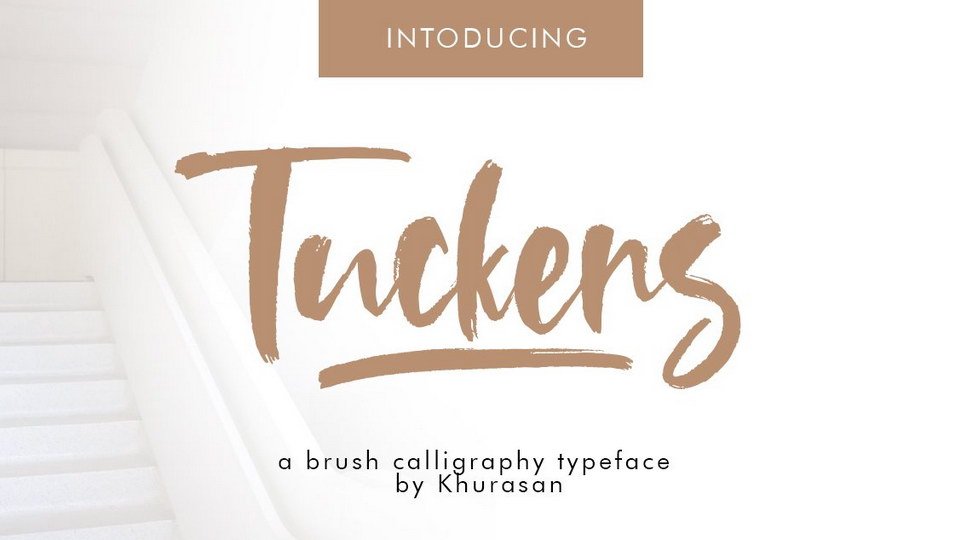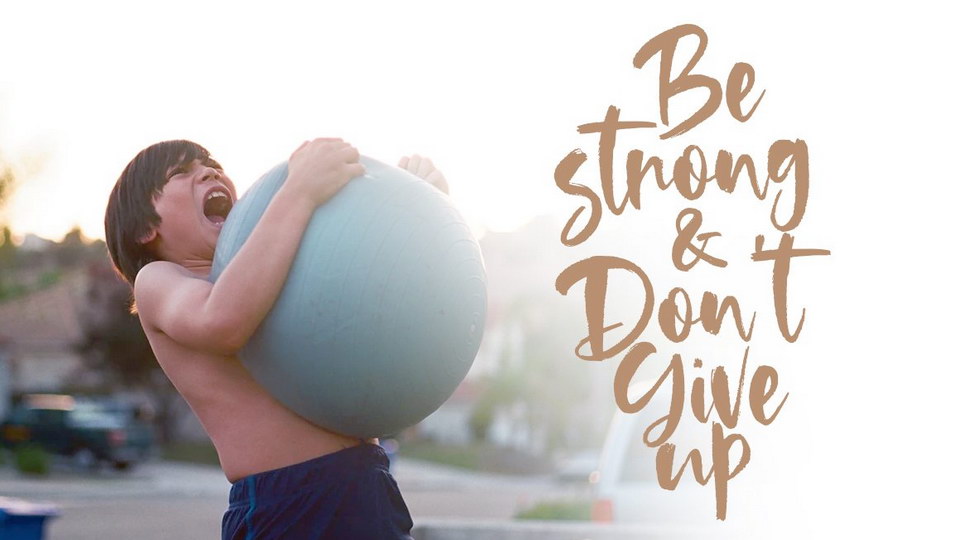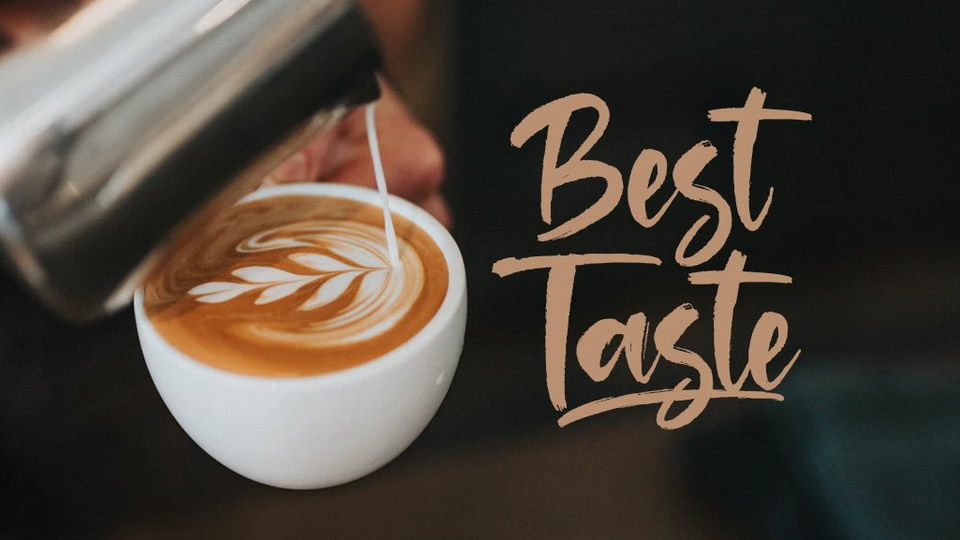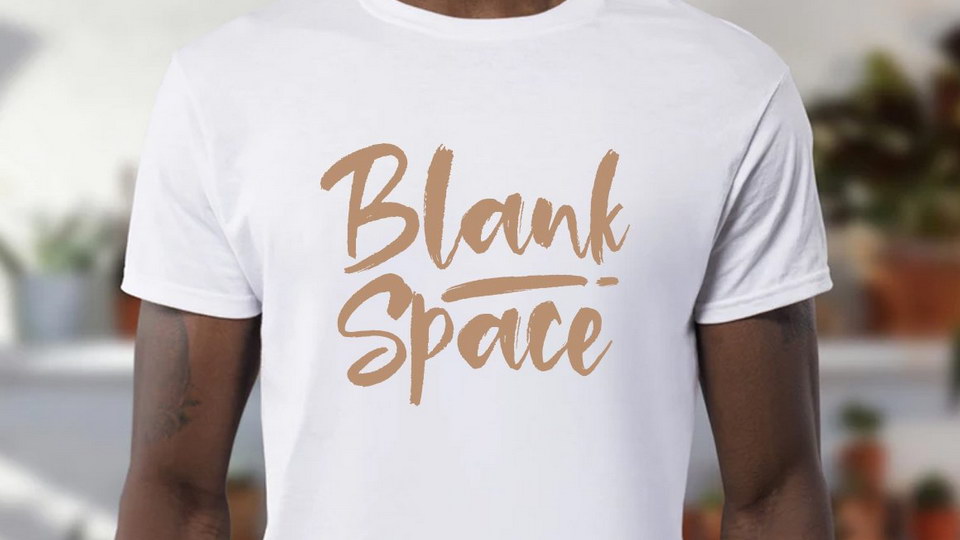
Tuckers is a stylish handwritten brush font with a natural texture, elegant and vintage feel character set. Great for crafts, posters, packaging, apparel, social media and other creative designs
Tuckers font includes a full set capital and lowercase letters, as well as multi-lingual support, currency figures, numerals, & punctuation.